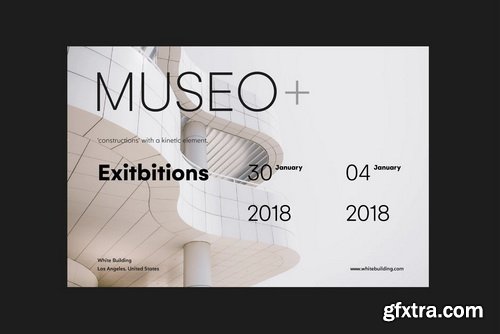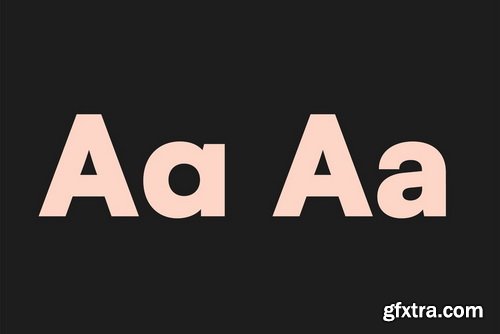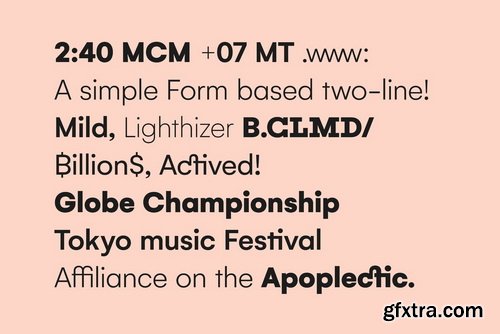
Gelion Font Family | 14 x TTF
Gelion is a Sans serif with a geometric touch with a minimal contrast of strokes, inspired by Futura, Avant Garde, Avenir and neo-grotesque Akzidenz-Grotesk, Helvetica form remaining true to the gracefully geometric look of the early 20th-century typefaces, that ticks off a long list of branding requirements.